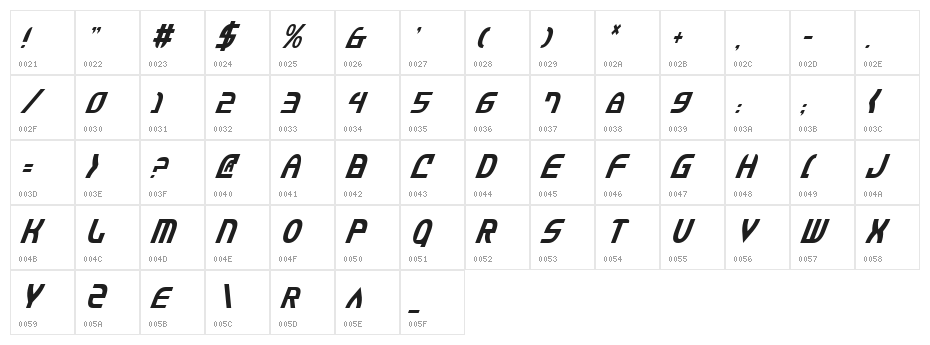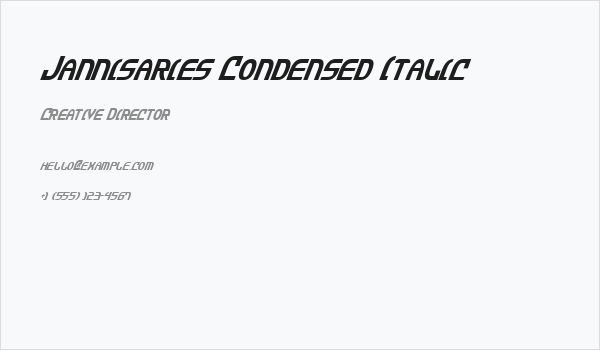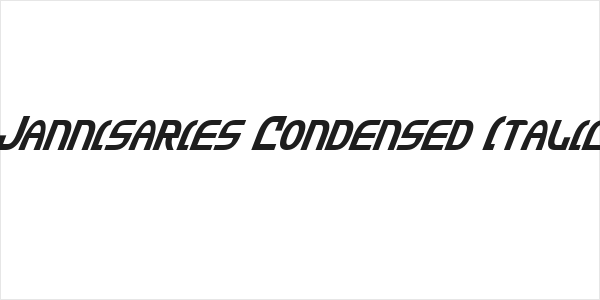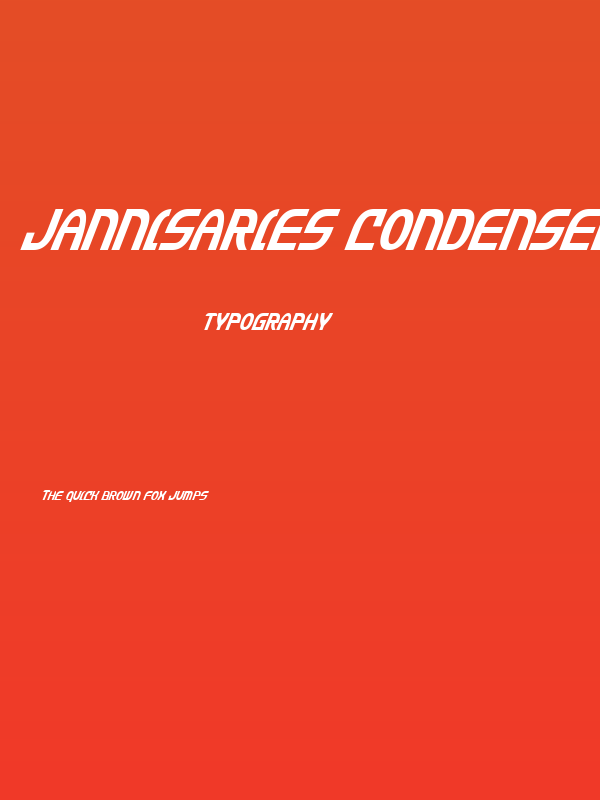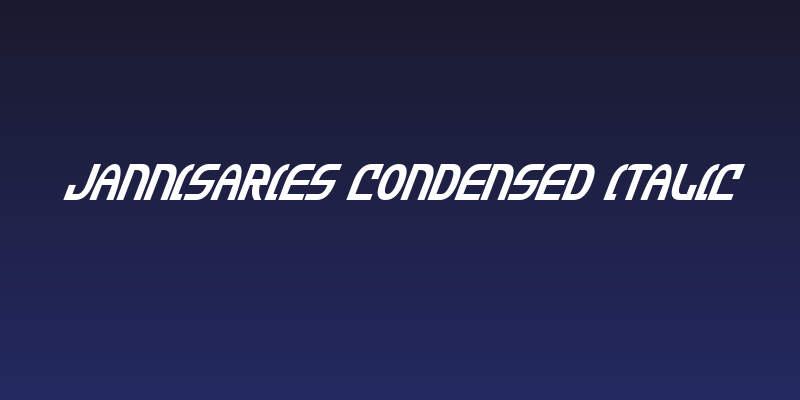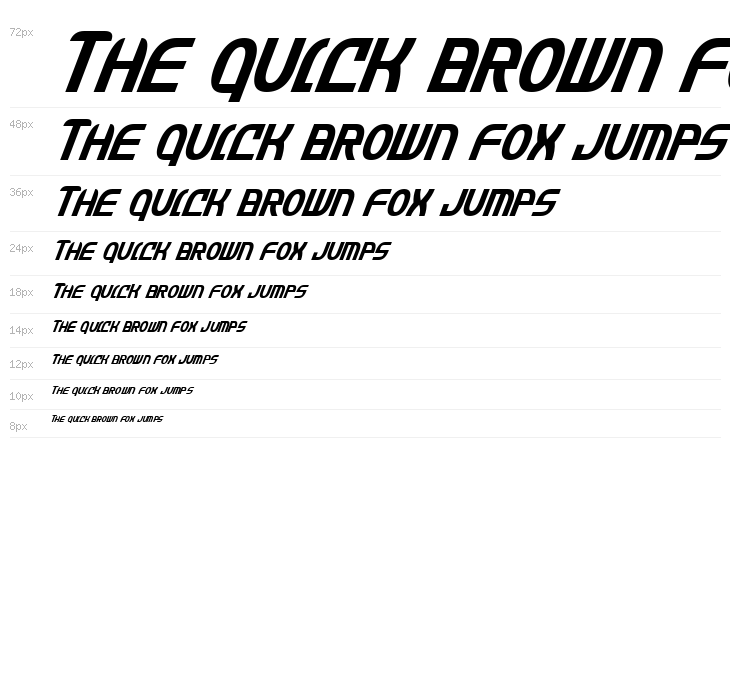
Jannisaries Condensed Italic Font
Jannisaries Condensed Italic Description
This font features a bold and dynamic style with a distinct italic slant, giving it a sense of motion and energy. The characters are condensed, enhancing the compact and sleek appearance. The strokes are thick and consistent, providing a strong visual impact. The design is modern and futuristic, with sharp angles and clean lines that convey a sense of speed and efficiency. The uppercase and lowercase letters maintain a uniform style, ensuring readability while adding a unique flair. The numerals and special characters are designed to match the overall aesthetic, making this font versatile for various applications.